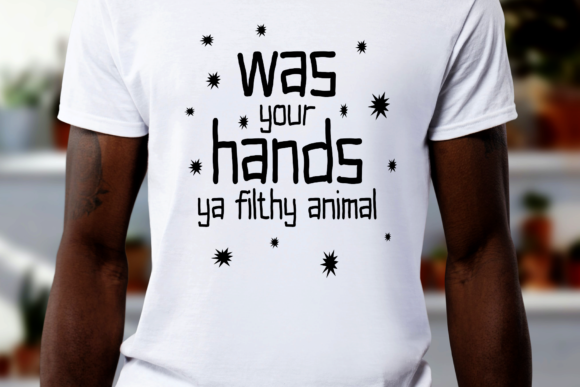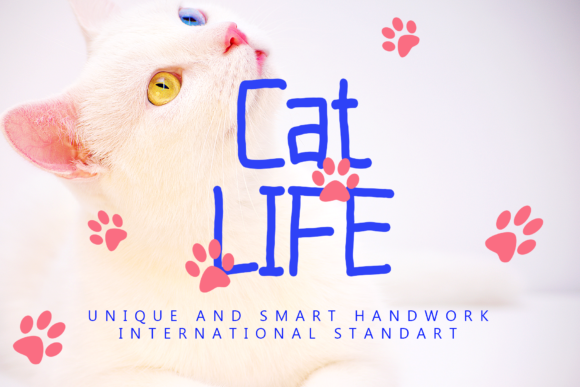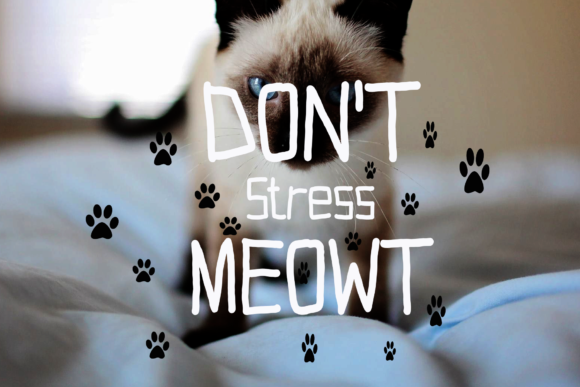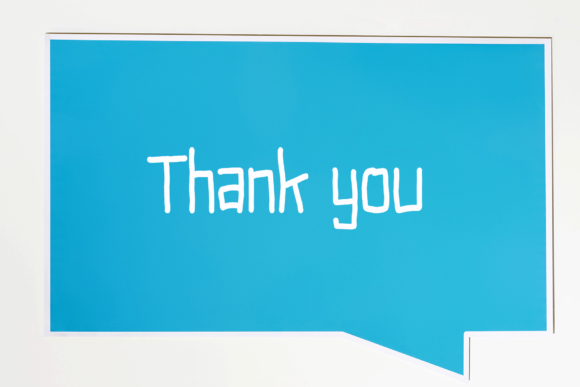
The Joy of Creativity: Discover the Magic of Animal Cute Font
Have you ever found yourself scrolling through social media, stopping at a single post that makes your heart skip a beat? Maybe it’s a beautifully designed logo, a whimsical illustration, or a simple yet effective text overlay. Whatever it is, there’s something about it that sparks your imagination and makes you want to create something just as amazing. For designers, this moment is the perfect opportunity to let their creativity shine, and the right font can be the key to unlocking that magic.
Enter Animal Cute Font, a simple yet effective handwritten font that’s perfect for adding a touch of personality to your designs. With its natural and unique style, Animal Cute Font is incredibly versatile and can be used in a wide range of projects, from branding and marketing materials to social media graphics and more.
Key Features of Animal Cute Font
- Unique Characteristics: The Animal Cute Font features adorable animal designs, including cats, dogs, and other cute creatures, which can be used to convey a playful and lighthearted tone.
- Scalability: The Animal Cute Font is designed to be highly scalable, making it suitable for use in various contexts, from small text to large headlines.
- Customization Options: The font offers various customization options, including color and outline settings, allowing designers to tailor the look and feel to their specific needs.
Animal Cute Font Review
Overall, I was quite excited to try out the Animal Cute Font, and I think it has some great qualities. ✨ For one, it’s incredibly playful and fun – it’s perfect for designs that need a lighthearted touch. The font’s bold lines and rounded edges give it a friendly, approachable feel that’s hard to resist.
Another thing that stands out about Animal Cute Font is its versatility. ✨ It works well for a wide range of applications, from children’s books to social media graphics. It’s also a great choice for designers who want to add some whimsy to their work without going over the top.
While Animal Cute Font has its strengths, there are a few limitations to consider. ⚠️ For one, it may be a bit too playful for more serious or professional designs. Additionally, the font can be a bit overwhelming when used in large quantities, so it’s best to use it sparingly.
Conclusion
In conclusion, I think Animal Cute Font is a solid choice for designers who want to add some fun and personality to their work. Just be mindful of its limitations and use it judiciously. With a little creativity, it can be a real asset in your design toolkit.
- Playful and fun design
- Perfect for children’s books and social media graphics
- Works well for lighthearted and whimsical designs
- May be too playful for serious or professional designs
- Can be overwhelming when used in large quantities
The Animal Cute Font is ideal for:
- Social media graphics and posts
- Product branding and marketing materials
For best results, use the Animal Cute Font in combination with playful graphics and colors. Experiment with different font sizes and styles to create a unique look.